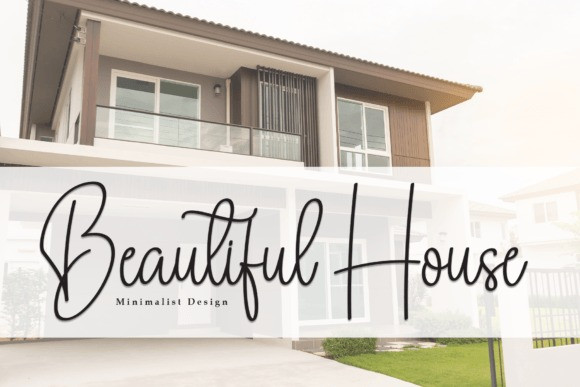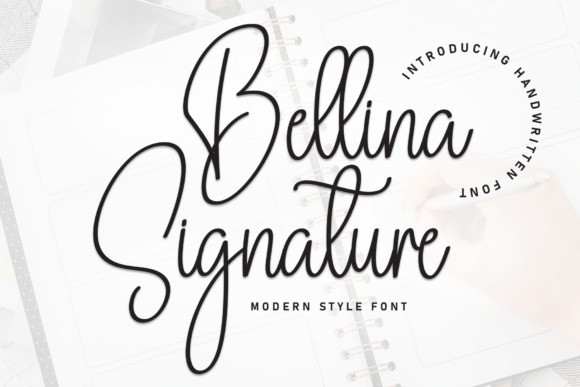
Bellina Signature Font
Bellina Signature Font is a luxurious script font that radiates elegance and sophistication. With its graceful and flowing characters, this font brings a touch of opulence to your designs. Ideal for adding a refined and classy feel to invitations, branding, or any project where a touch of luxury is desired. Elevate your typography with BellinaSignature and let its timeless beauty enhance the overall allure of your creations.